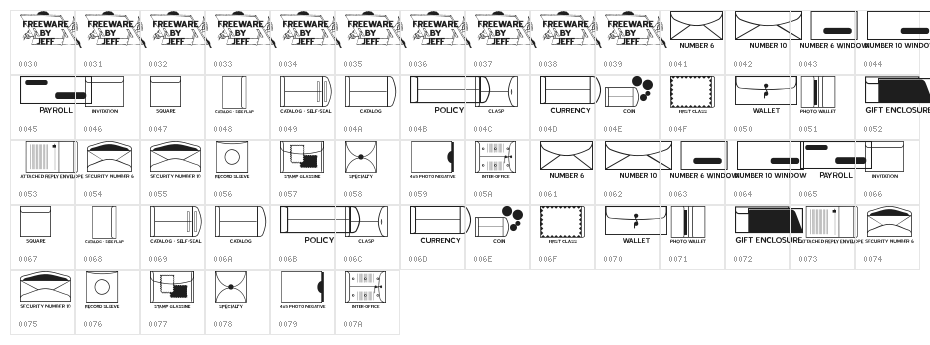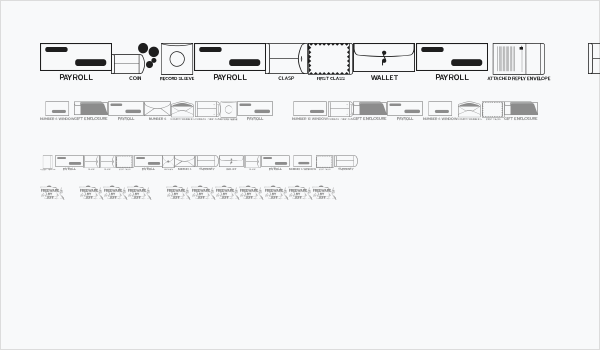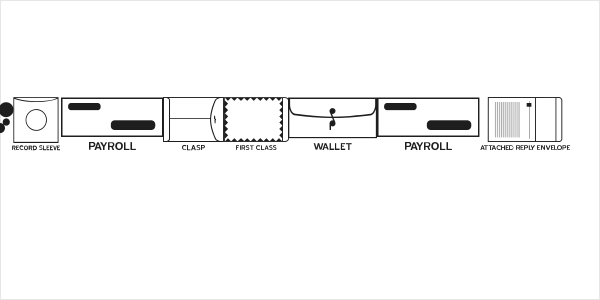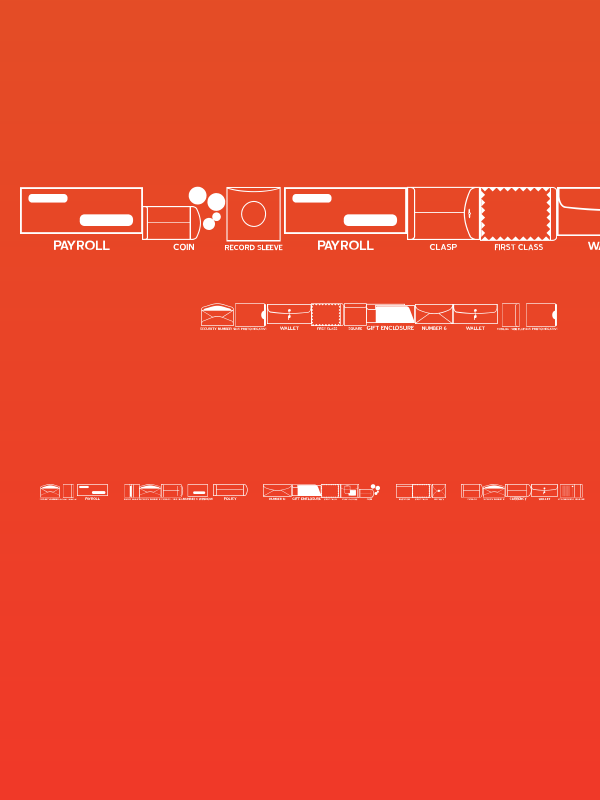
Envelopes JL Font
Envelopes JL Description
This image does not contain a valid font. It appears to be a collection of envelope designs and labels rather than a typical font set. The designs include various envelope types such as number 6, number 10, window envelopes, and more, along with labels like payroll, policy, and currency. The image also includes decorative elements and a repeated 'Freeware by Jeff' graphic.